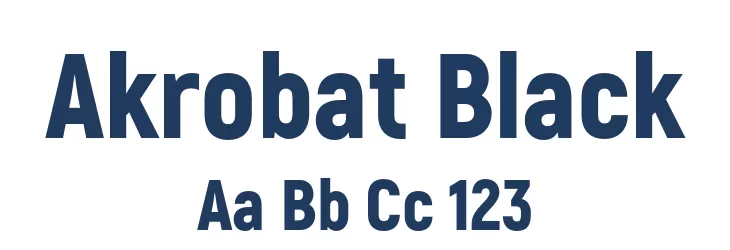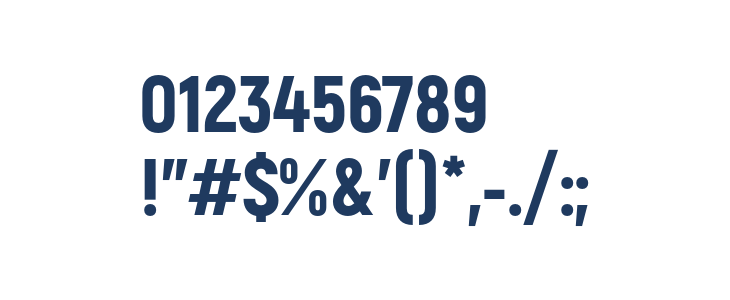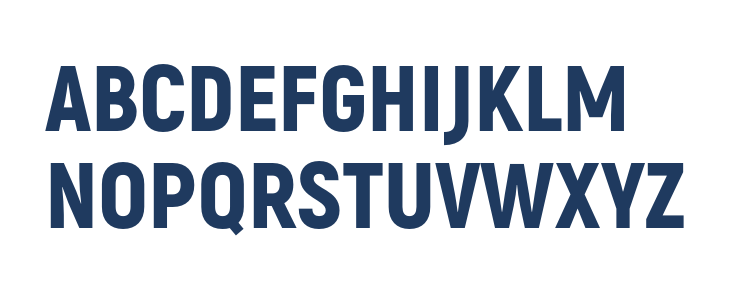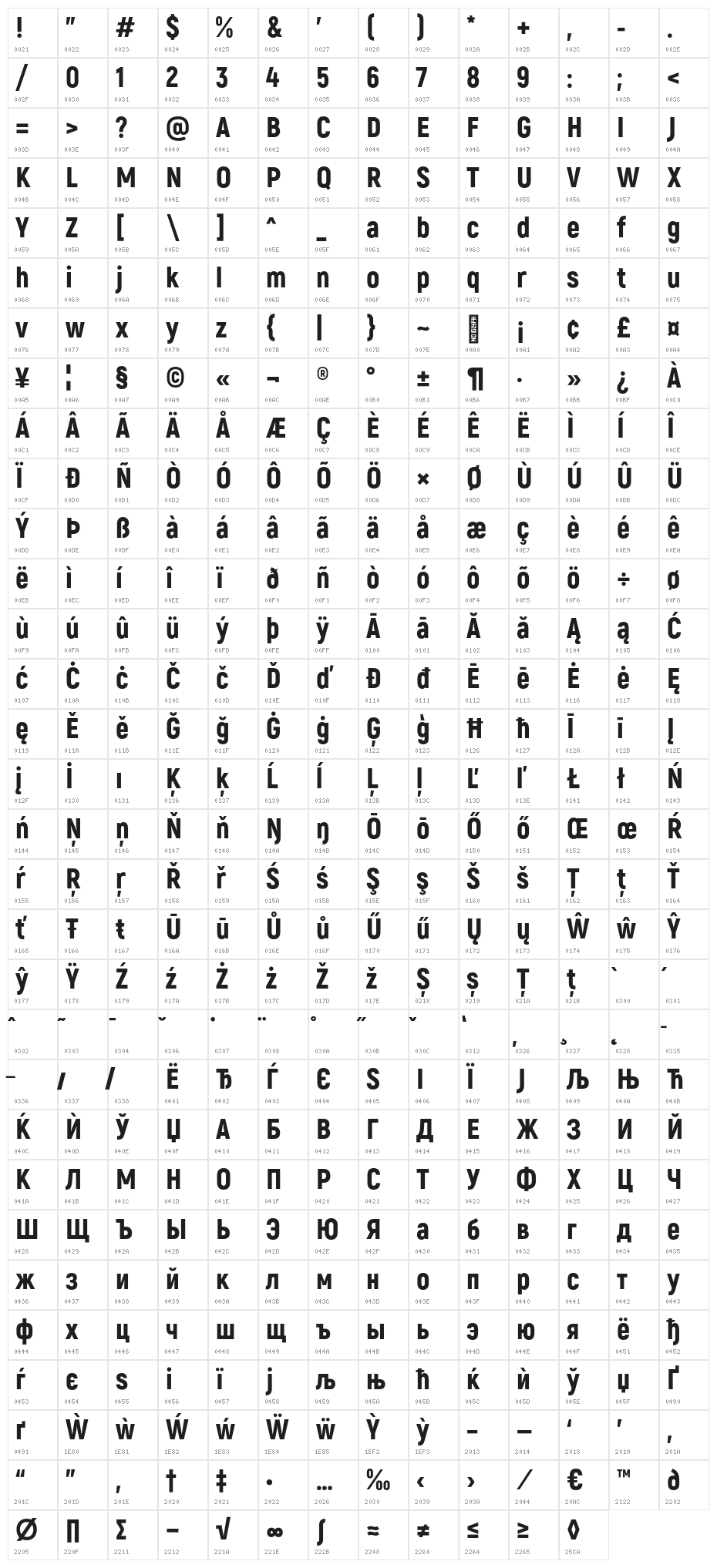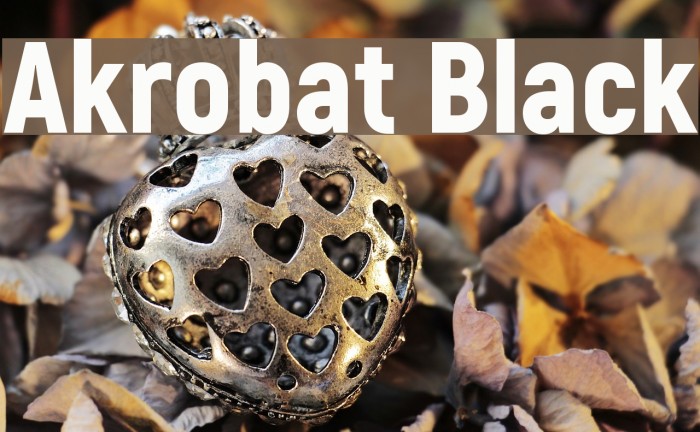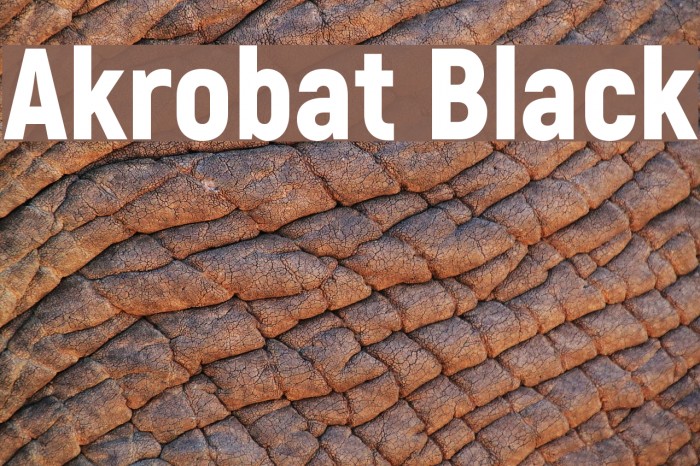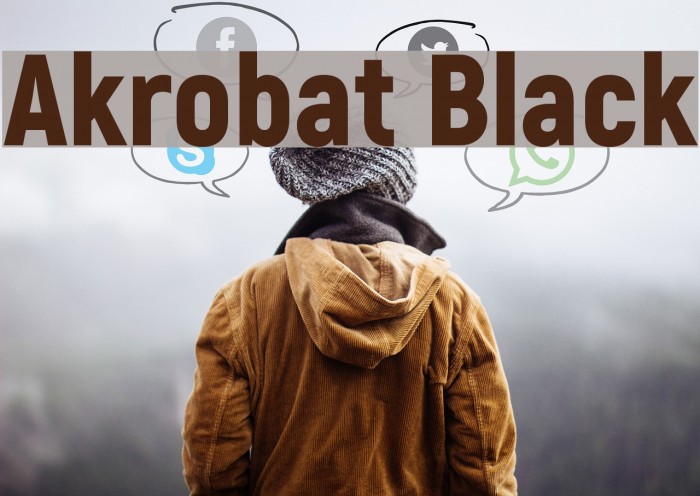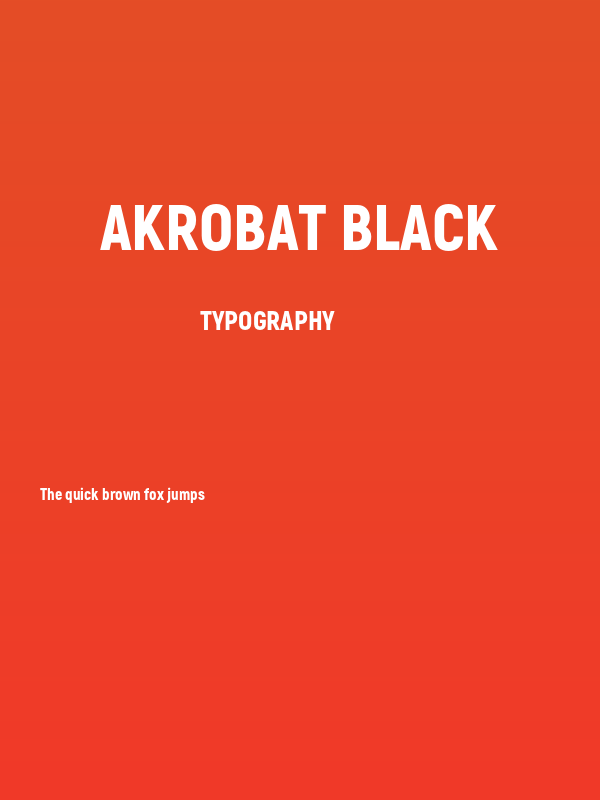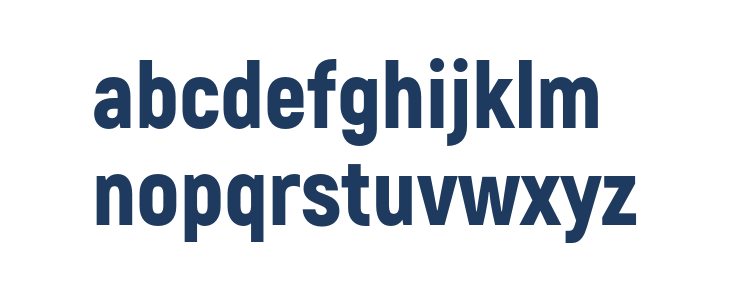
Akrobat Black Font
Akrobat Black Description
This font showcases a bold and modern sans-serif style with clean lines and a robust presence. The characters are evenly spaced, providing a balanced and uniform appearance. The uppercase and lowercase letters maintain a consistent weight, contributing to its strong visual impact. The numerals are clear and easily distinguishable, while the special characters are well-integrated, enhancing the font's versatility. Its design is straightforward yet impactful, making it suitable for various applications where clarity and emphasis are essential.
Proposed ProjectsIdeal for headlines, posters, branding, and advertising where a bold statement is needed.